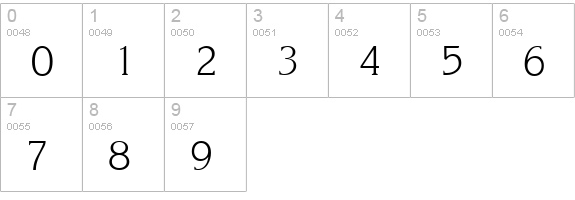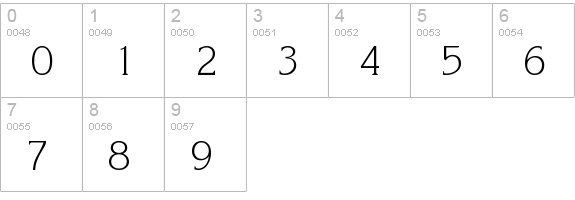
KorinthSerial-Xlight-Regular is the standard, neutral variant in the KorinthSerial typeface family \xE2\x80\x94 well suited to general body text, paragraphs, and standard typographic work.
KorinthSerial-Xlight-Regular is a sleek and modern font that exudes elegance and sophistication. With its clean lines and balanced proportions, this typeface is perfect for a wide range of design projects, from branding to editorial design. The gentle curves and sharp angles of KorinthSerial-Xlight-Regular create a harmonious and professional look that is sure to elevate any text. The best part? KorinthSerial-Xlight-Regular is available for free download at FontsMarket.com. This means you can easily access this stunning font and use it in your projects without any cost. Whether you are working on a website, poster, or logo design, KorinthSerial-Xlight-Regular is a versatile font that will bring a touch of refinement to your work. Don't miss out on the opportunity to enhance your designs with the beauty of KorinthSerial-Xlight-Regular. Download it for free today and see the difference it can make in your projects.